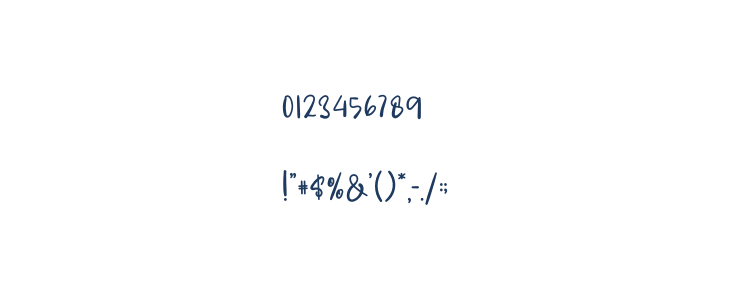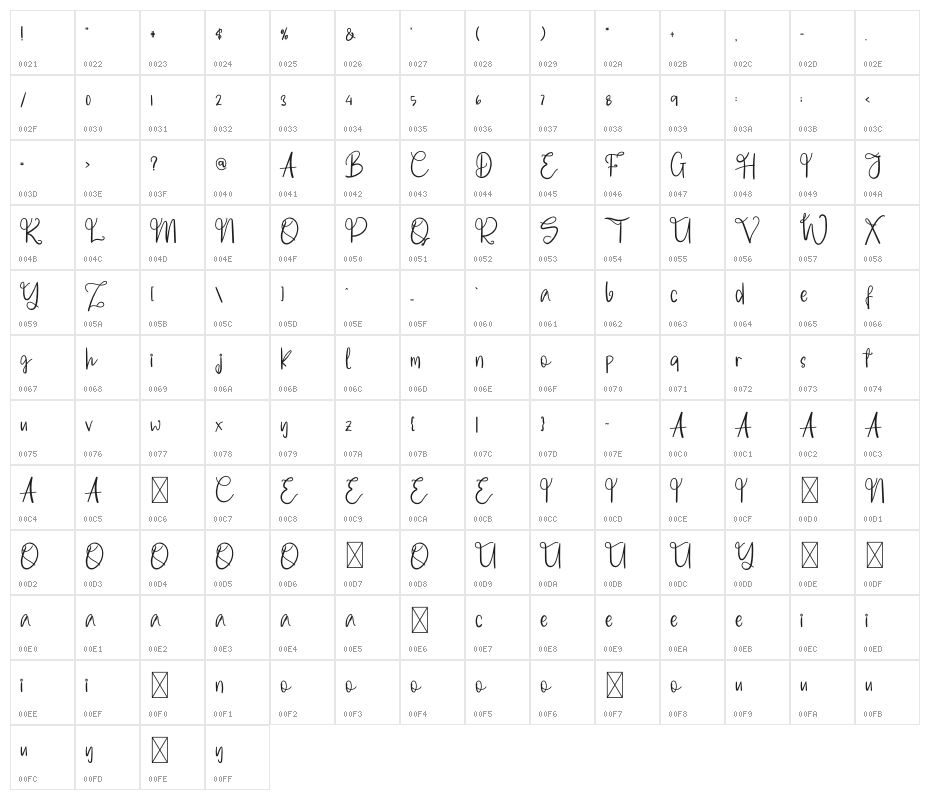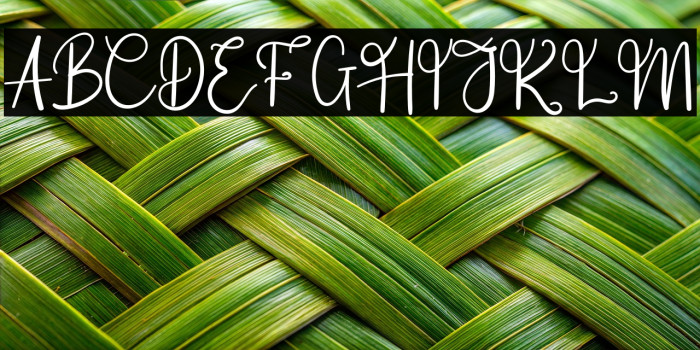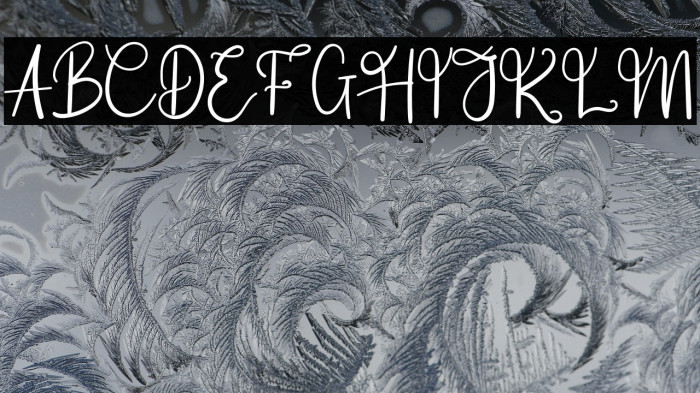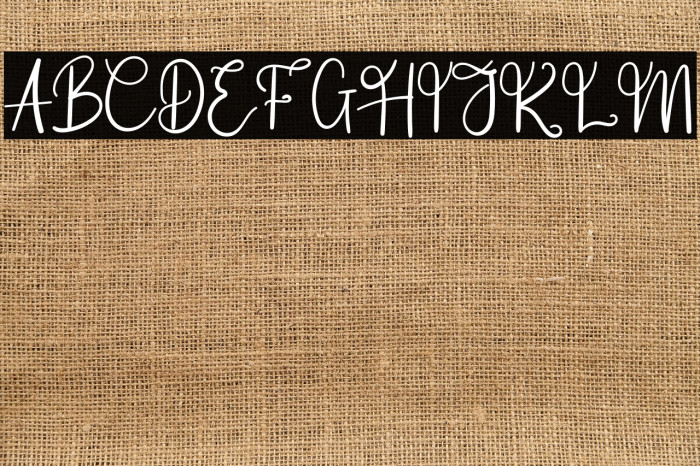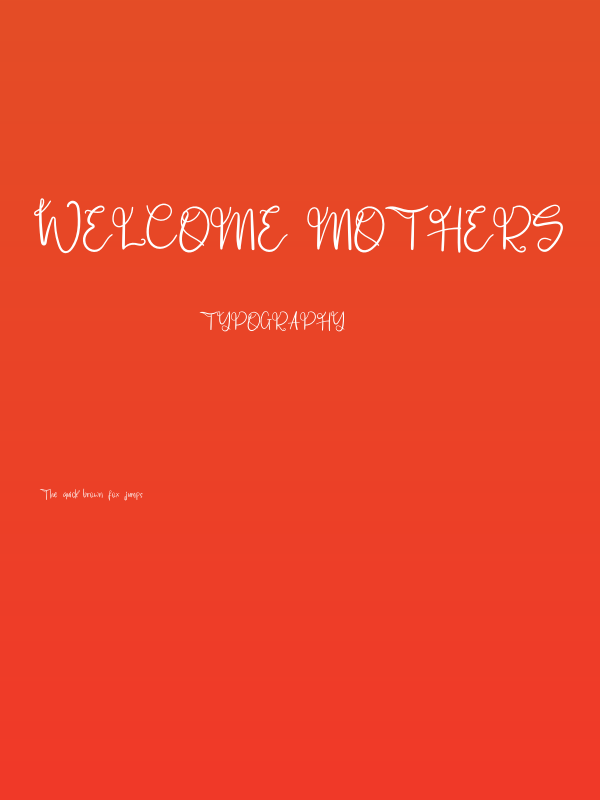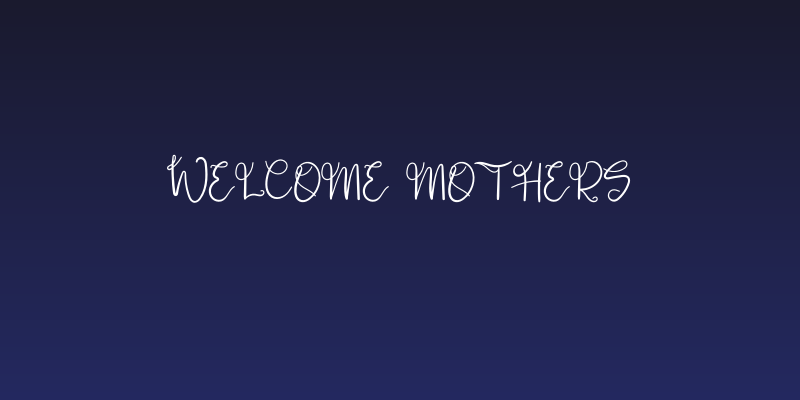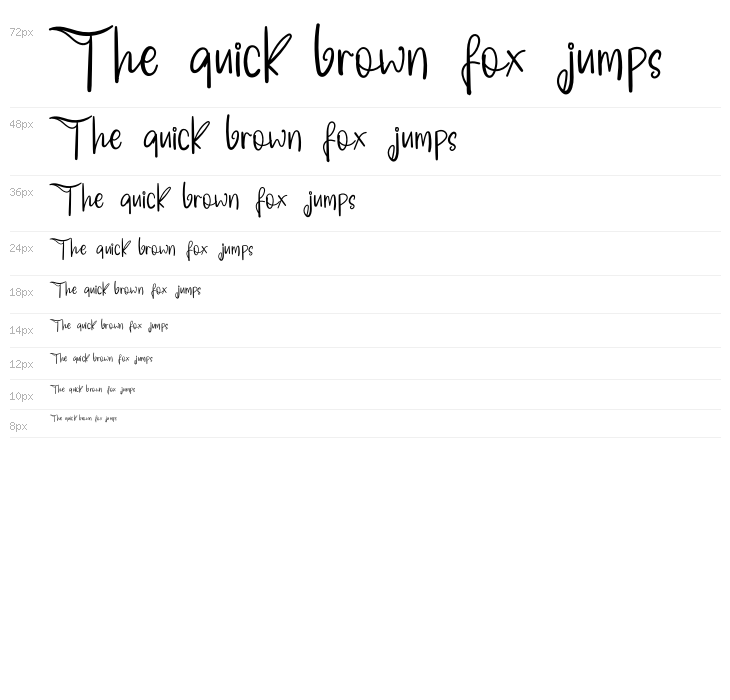
Welcome Mothers Font
Welcome Mothers Description
This font features a playful and whimsical handwritten style, characterized by its flowing and curvy letterforms. The uppercase letters exhibit a unique blend of elegance and casual flair, with each character having its own distinct personality. The lowercase letters maintain a consistent style, offering a harmonious balance between readability and artistic expression. Numbers and special characters are crafted with the same attention to detail, ensuring a cohesive look across all text elements. The font's overall appearance is both charming and versatile, making it suitable for a variety of creative projects.